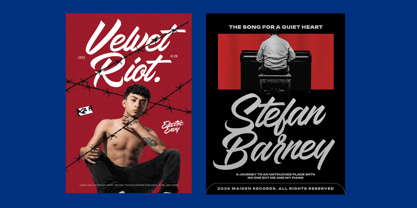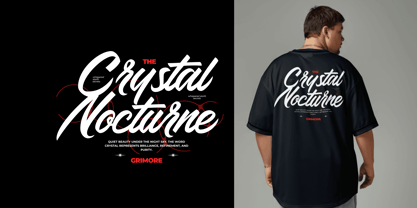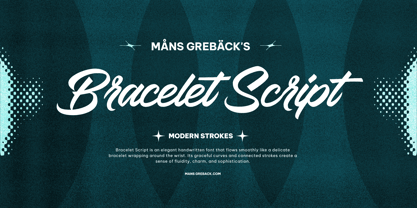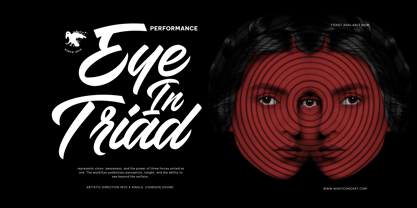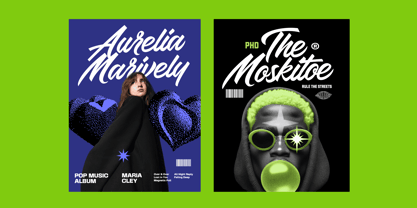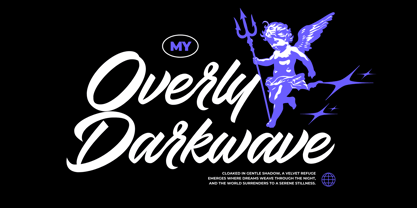
Bracelet Script
Die Schriftfamilie Bracelet Script wurde von Måns Grebäck entworfen und von Mans Greback veröffentlicht. Bracelet Script enthält 4 Stile und Familienpaketoptionen. Mehr über diese Familie
Bracelet Script is a thick brush script with even, connected strokes.
The letters are drawn with a confident, flat-sided brush — strokes hold their weight from start to finish instead of tapering, and each shape locks neatly into the next. The italic carries a steady angle and the connections sit close, so a word reads as one continuous gesture rather than as a string of separate forms. Where most scripts trade in flourish, this one keeps a steadier hand.
You can picture it stitched in chain along the back of a denim jacket, or painted thick across a record sleeve.
The font is built with advanced functionality and guaranteed top-notch quality, containing stylistic and contextual alternates, ligatures and more automatic and manual features; all to give you full control and customizability.
It has extensive lingual support, covering all Latin-based languages, from North Europa to South Africa, from America to South-East Asia. It contains all characters and symbols you'll ever need, including all punctuation and numbers.